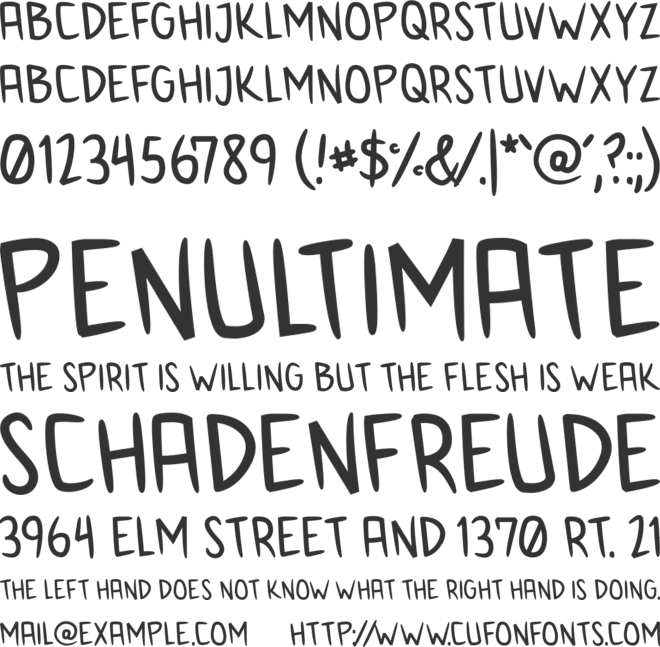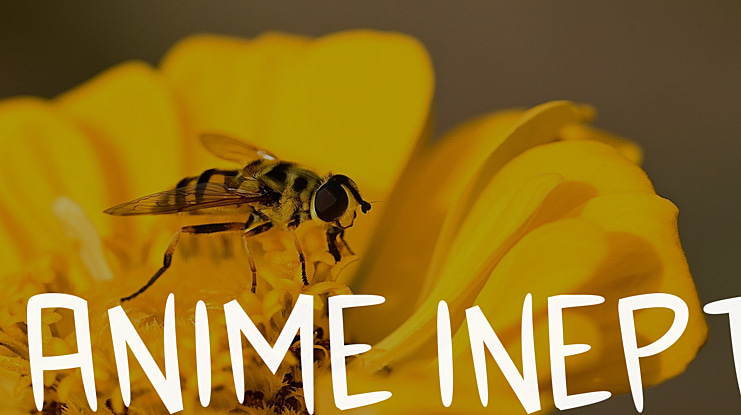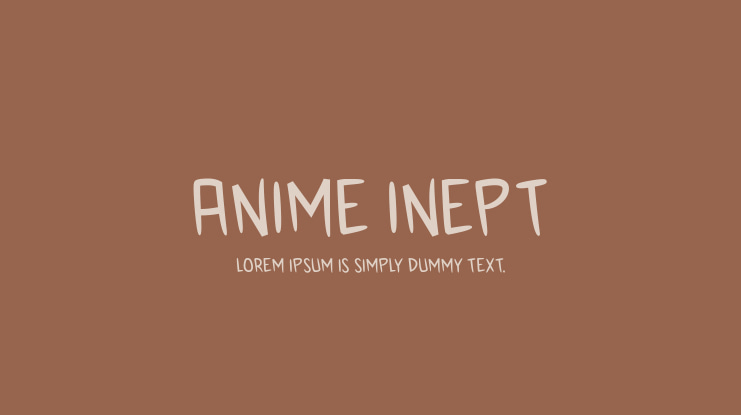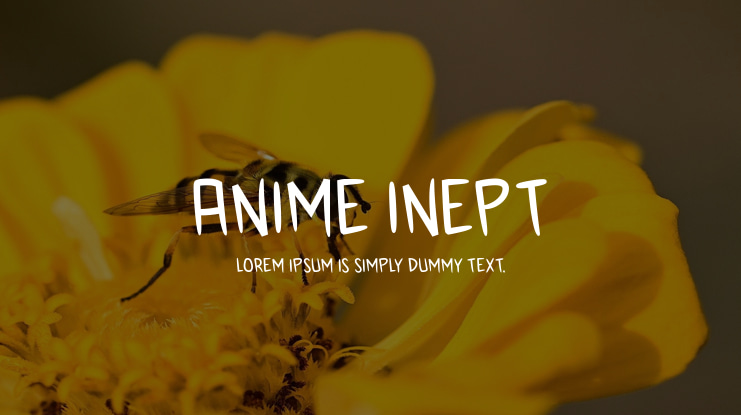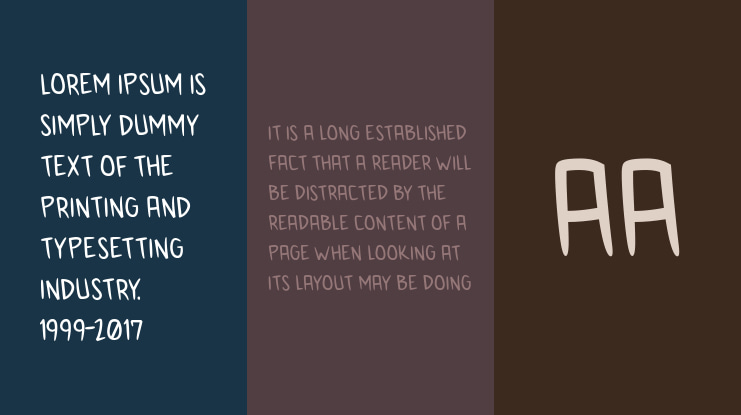
Anime Inept Font
I've wanted to make comics since I was a kid. There are many free comic fonts, but Anime Inept has a more handwritten flow to it. Of course, comic book text is always uppercase. This font includes many foreign characters and characters as well. Anime Inept only comes in one weight, but if you're resourceful you can bold it on your own.